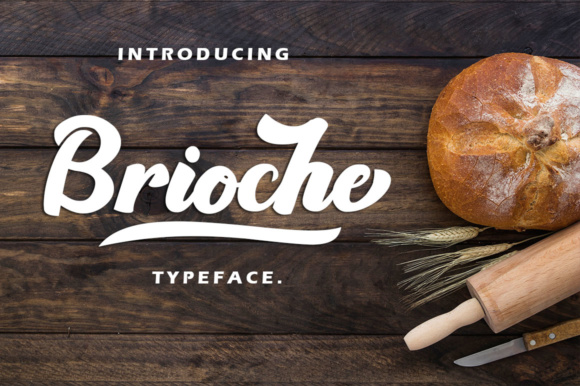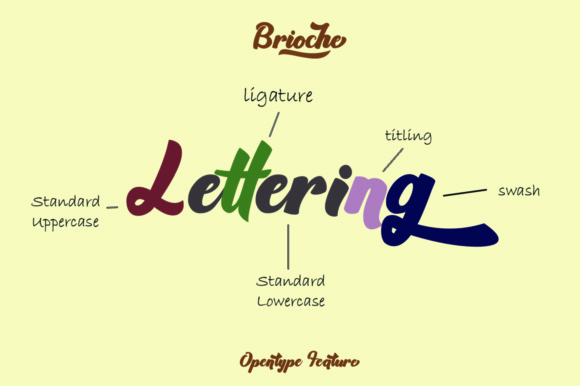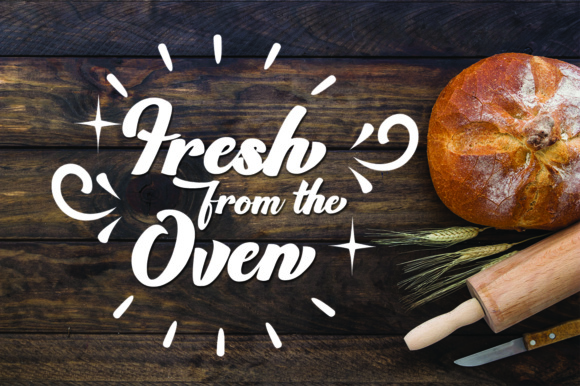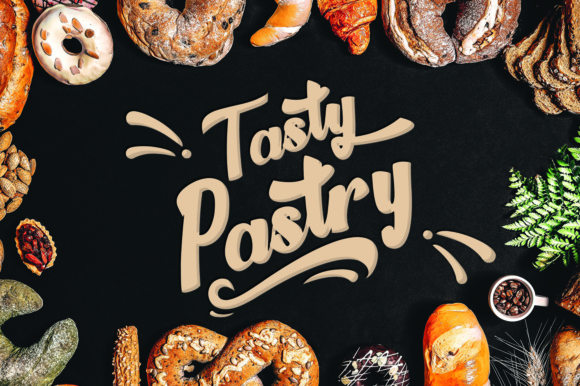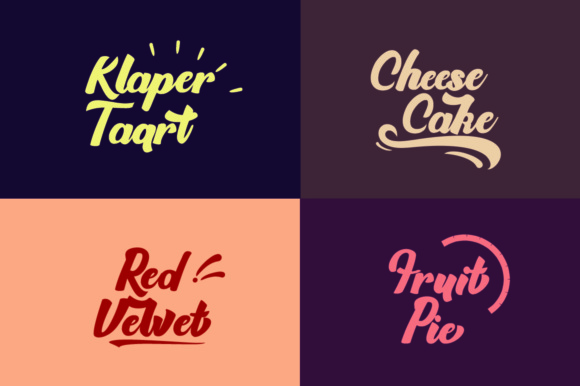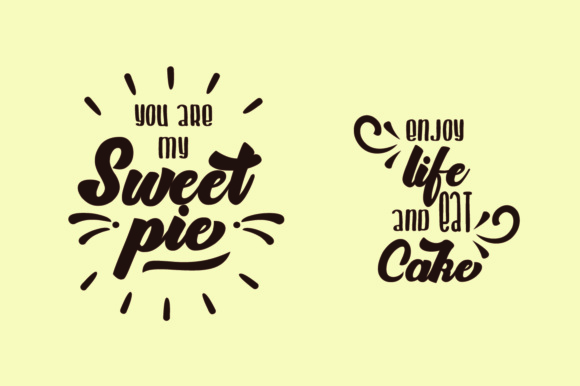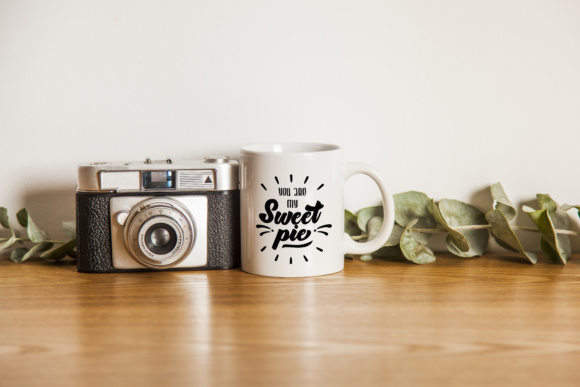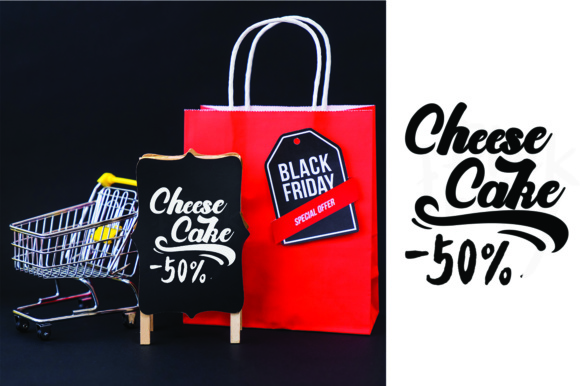
Brioche Font
About Brioche Font
The Brioche is a bold, clean and casual handmade typeface. It comes with some attractive swashes, titling, and ligatures that will make your design work more easier! Great choice for logo designs, hand lettering projects, posters, branding, apparels, merchandises, packaging, social media posts, etc. Brioche will give you a simple but strong touch for every design.